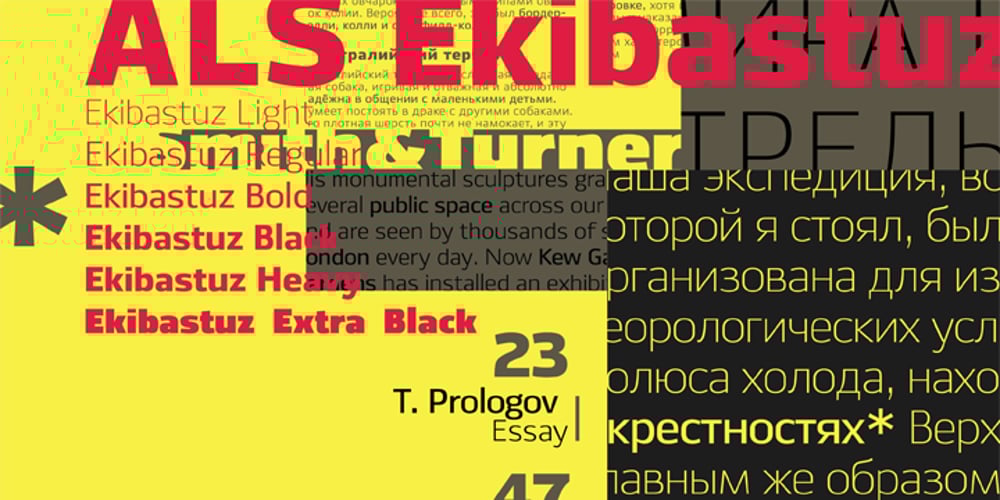
ALS Ekibastuz Font Family was designed by Zakhar Yaschin and published by Art. Lebedev Studio. ALS Ekibastuz contains 6 styles and family package options. ALS Ekibastuz is a contemporary urban-style typeface extremely suitable for periodicals and advertising. It has defined, open, clear-cut letterforms and modern proportions. Originally designed to work well for headings, Ekibastuz was developed further to give a distinct energetic feel when used at large sizes and be highly readable and neutral at small sizes. It consists of six font styles and offers a wide choice of weights, which is useful for creating contrast between boxes of text on a page.